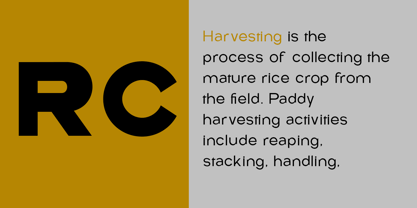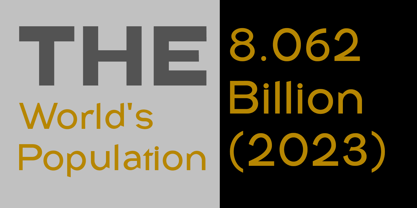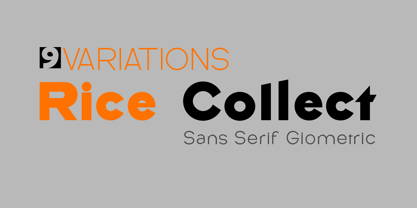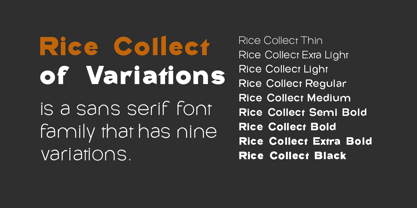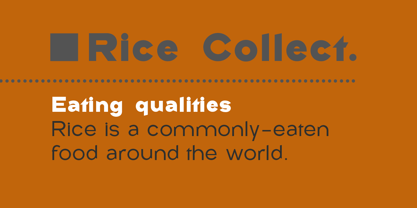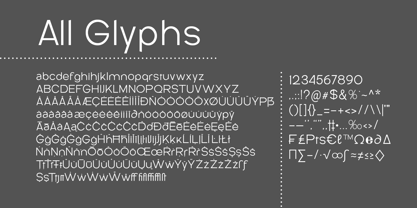
Rice Collect
by Groen Studio
The Rice Collect Font Family was designed by Roiyani Teungku and published by Groen Studio. Rice Collect contains 9 styles and family package options. More about this family
Rice Collect is a New Formal and Elegant Typeface. Created in a very bold style.
Rice Collect is a variation of the normal style font and has a distinctive feature in the corner of the glyph characters that look sharp. This font comes in 9 variations, This font looks amazing in logos, magazines, and movies. This font will be perfect for branding, headlines, captions, paragraphs, and posters. Various weights allow you to experiment with various applications. This font is made to make an impression without sacrificing its beauty and readability.